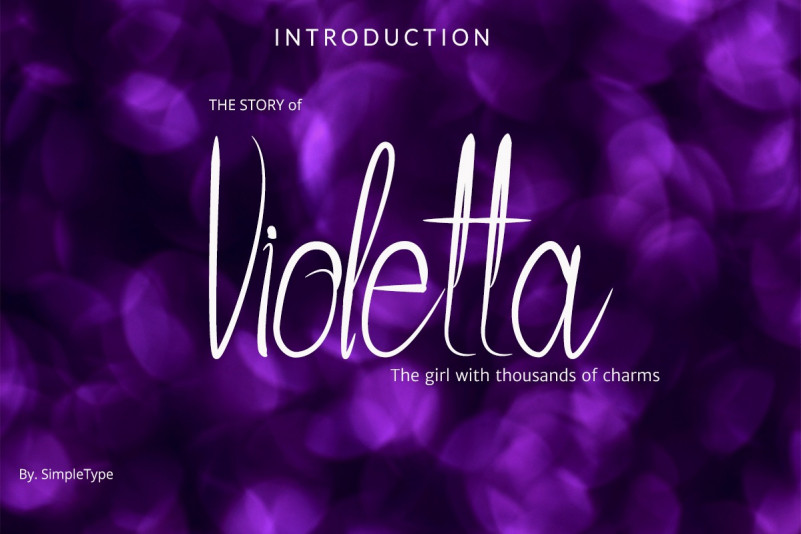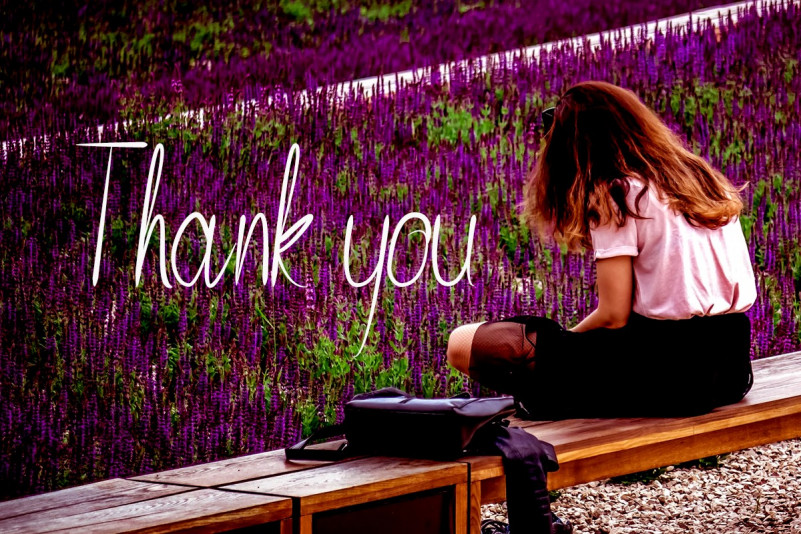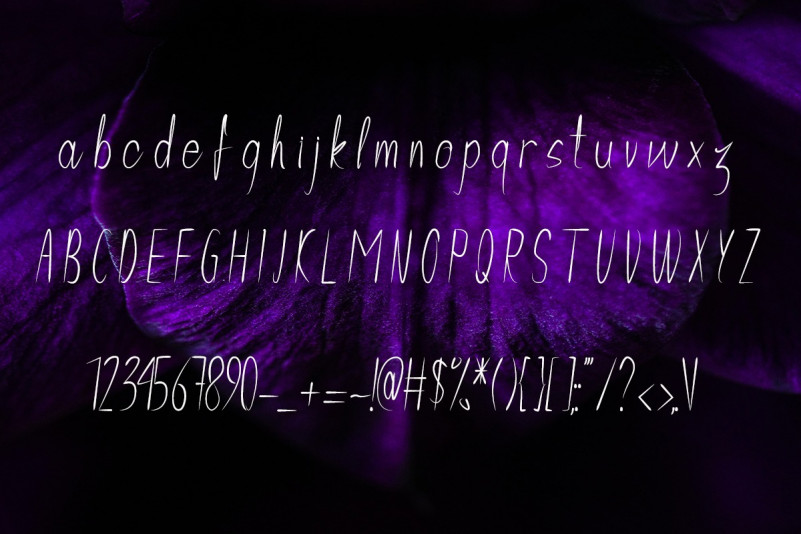
Violetta Handwritten Font
Violetta is script font elegan and beautyfull.This font It comes with uppercase, numbers and symbols. Its handwritten look can really freshen up your projects. Questa Whitte is perfect for branding projects, logo, wedding designs, social media posts, advertisements, product packaging, product designs, label, photography, watermark, invitation, stationery and any projects that need handwriting taste.